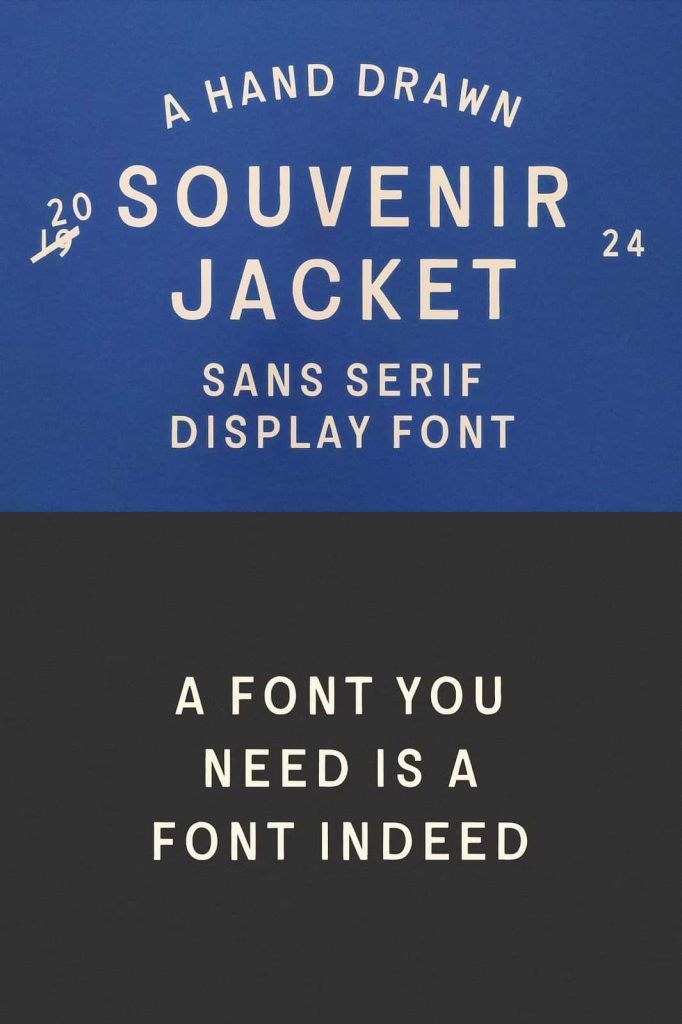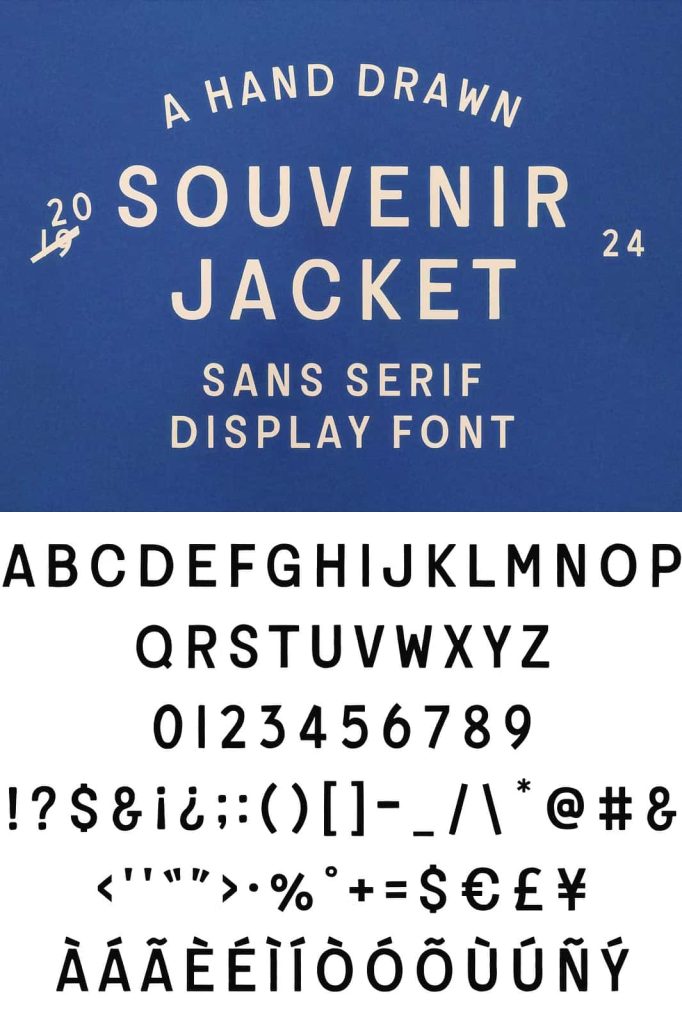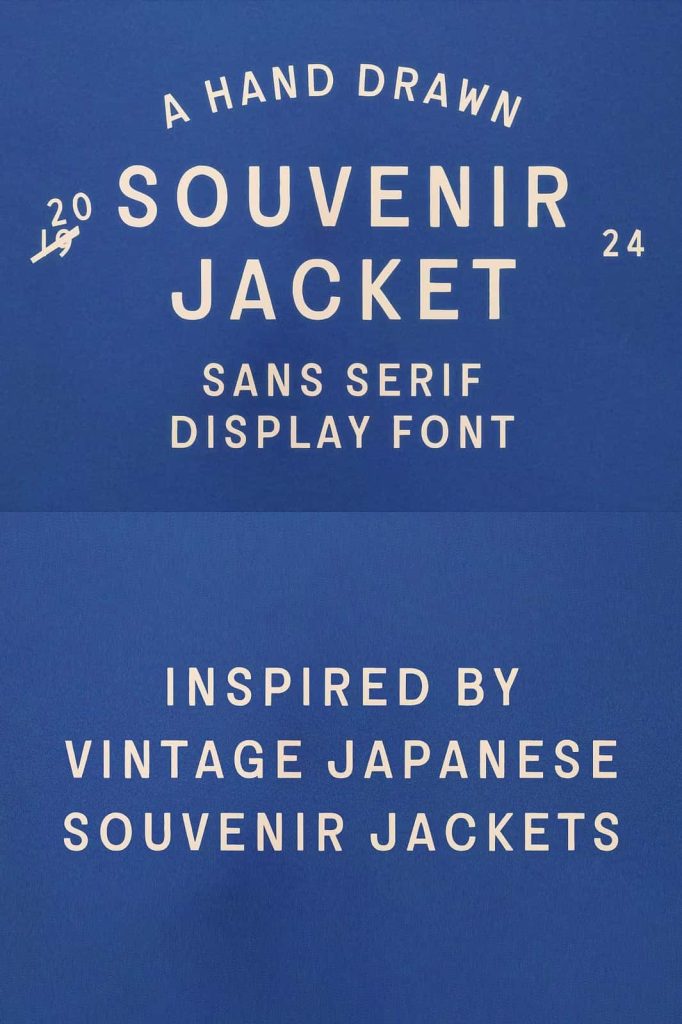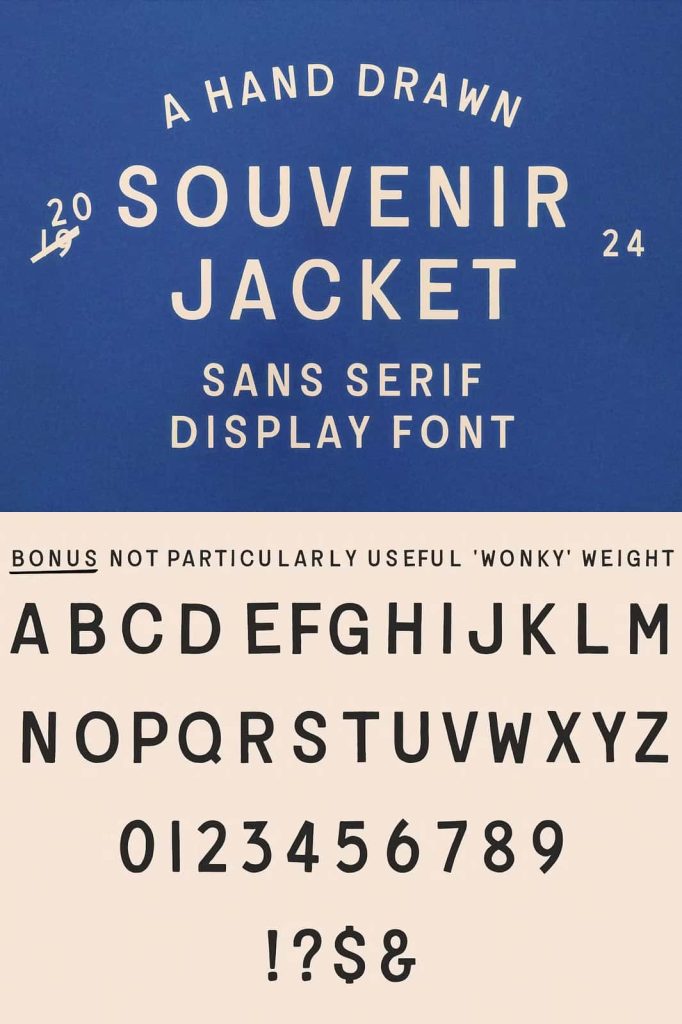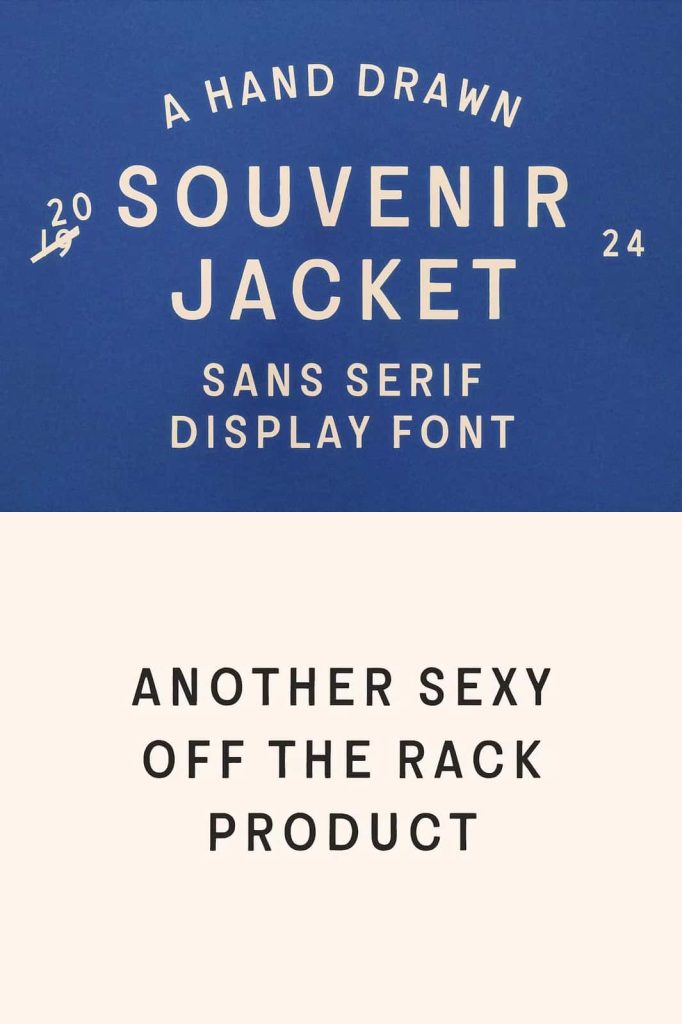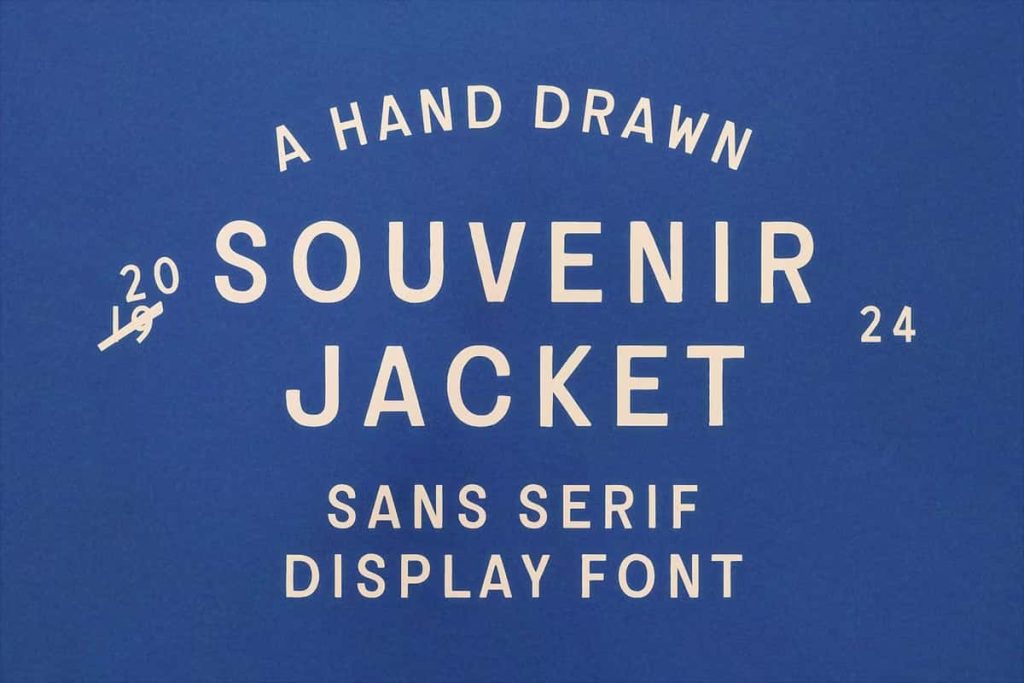
Souvenir Jacket | Hand Drawn Font
Souvenir Jacket Font
The Souvenir Jacket font is a distinctive sans serif typeface inspired by the iconic embroidered jackets that became popular after World War II. These jackets, often collected by United States military personnel during their overseas service, featured intricate embroidery and bold lettering that reflected the culture and memories of the places they visited. Souvenir Jacket captures that nostalgic visual spirit and transforms it into a modern, versatile typeface suitable for contemporary design.
Carefully drawn by hand, this typeface recreates the authentic charm of vintage embroidery while introducing a sleek and modern structure. The result is a font that feels expressive, stylish, and timeless. Designers can use Souvenir Jacket to bring historical inspiration and handcrafted character into modern creative projects without sacrificing clarity or usability.
Inspired by Vintage Military Souvenir Jackets
Souvenir jackets became cultural icons after World War II when American soldiers brought them home as mementos of their time abroad. These jackets often displayed embroidered text, decorative symbols, and references to locations such as Japan, Korea, and other parts of Asia. The lettering used on these garments carried a bold and artistic quality that stood out visually.
The Souvenir Jacket font takes inspiration from that historic tradition. Designers studied the lettering styles commonly found on vintage jackets and translated those elements into a digital typeface. The shapes of the letters reflect the fluid movement and bold strokes typically seen in embroidered text.
While the inspiration comes from vintage garments, the font also introduces subtle refinements that make it highly practical for modern design. This balance between history and modern usability makes Souvenir Jacket an appealing option for designers who appreciate retro aesthetics.
Hand-Drawn Letterforms with Authentic Character
One of the defining qualities of the Souvenir Jacket font is its hand-drawn construction. Each character was carefully crafted to preserve the natural imperfections and organic flow that give handmade lettering its personality. This design process helps the font avoid the overly mechanical look that some digital typefaces can produce.
The strokes appear slightly inky and expressive, echoing the appearance of lettering that might have been sketched or embroidered by hand. This subtle texture adds visual interest and helps the font stand out in both print and digital layouts.
By preserving the handcrafted aesthetic, the font feels authentic and artistic. Designers can rely on it to create typography that feels lively and expressive without appearing overly decorative or difficult to read.
A Sleek Sans Serif with a Vintage Edge
Although the font draws inspiration from historical embroidery, it ultimately takes the form of a clean sans serif typeface. This structure gives it strong versatility and readability across many design contexts. The letterforms remain simple and balanced, allowing them to function effectively in both large and small text sizes.
The slightly inky strokes and hand-drawn curves introduce a vintage edge that distinguishes the font from traditional geometric sans serif typefaces. Instead of appearing rigid or overly technical, Souvenir Jacket feels relaxed, expressive, and approachable.
This combination of clean design and artistic detail makes the typeface suitable for designers who want a modern font that still carries a sense of personality and cultural inspiration.
Ideal for Titles, Headlines, and Body Text
Souvenir Jacket performs exceptionally well in display typography. Designers can use it to create eye-catching titles, headlines, and branding elements that immediately attract attention. The bold character shapes maintain clarity while delivering a strong visual presence.
At the same time, the font remains readable enough to function as body text in many layouts. Its clean sans serif structure supports longer passages without overwhelming the reader. This flexibility allows designers to use the font consistently throughout an entire project.
From posters and editorial layouts to website headers and product packaging, Souvenir Jacket adapts easily to different creative applications. The vintage inspiration gives designs a distinctive personality, while the modern structure keeps everything legible and organized.
Versatile Applications for Creative Design
The Souvenir Jacket font works well across many design fields, particularly projects that benefit from retro inspiration or handcrafted aesthetics. Graphic designers frequently use it for branding, posters, merchandise graphics, album artwork, editorial layouts, and promotional materials.
The font also fits naturally into fashion-related projects, especially those influenced by vintage streetwear and heritage styles. Designers creating apparel graphics or clothing labels can use this typeface to reinforce the historical connection to embroidered souvenir jackets.
Ultimately, Souvenir Jacket offers a unique blend of historical inspiration and modern usability. Its hand-drawn style, sleek sans serif structure, and vintage character make it a powerful tool for designers who want to create typography that feels expressive, memorable, and visually engaging.